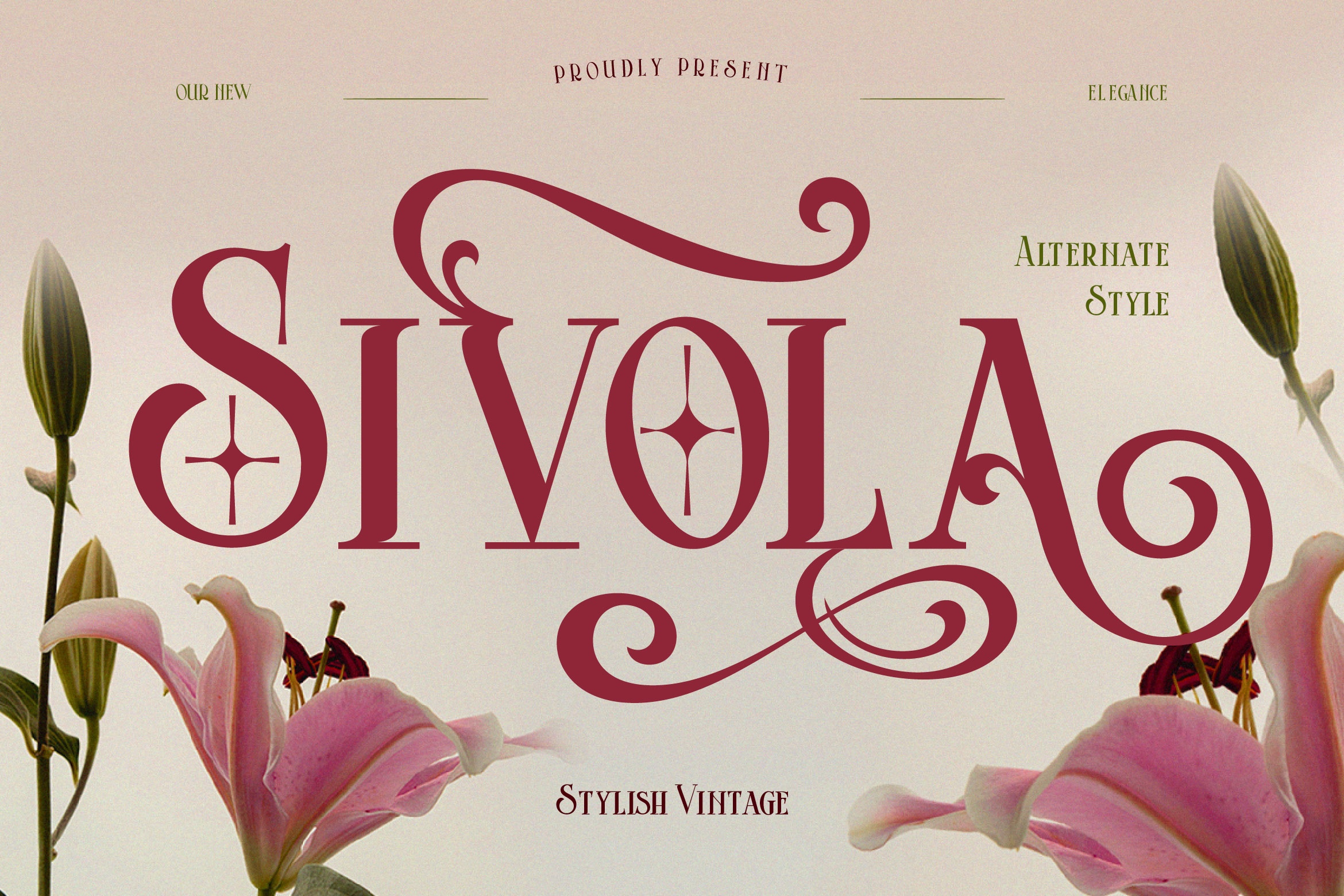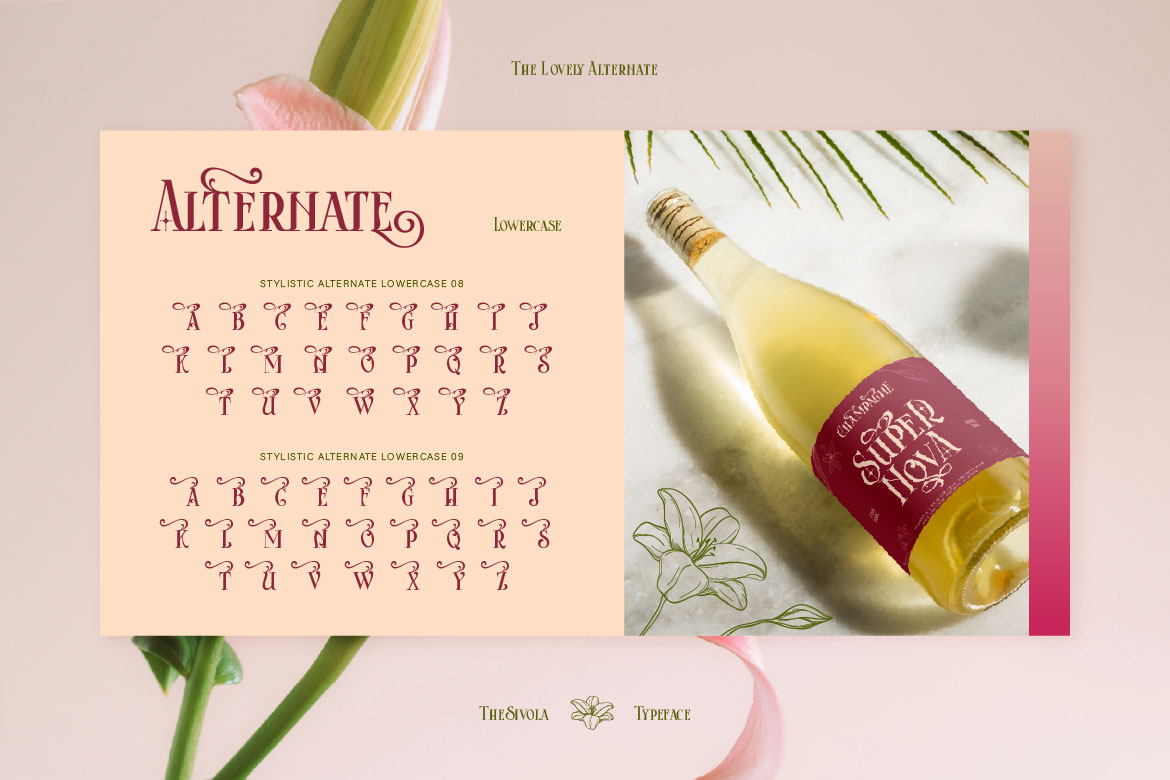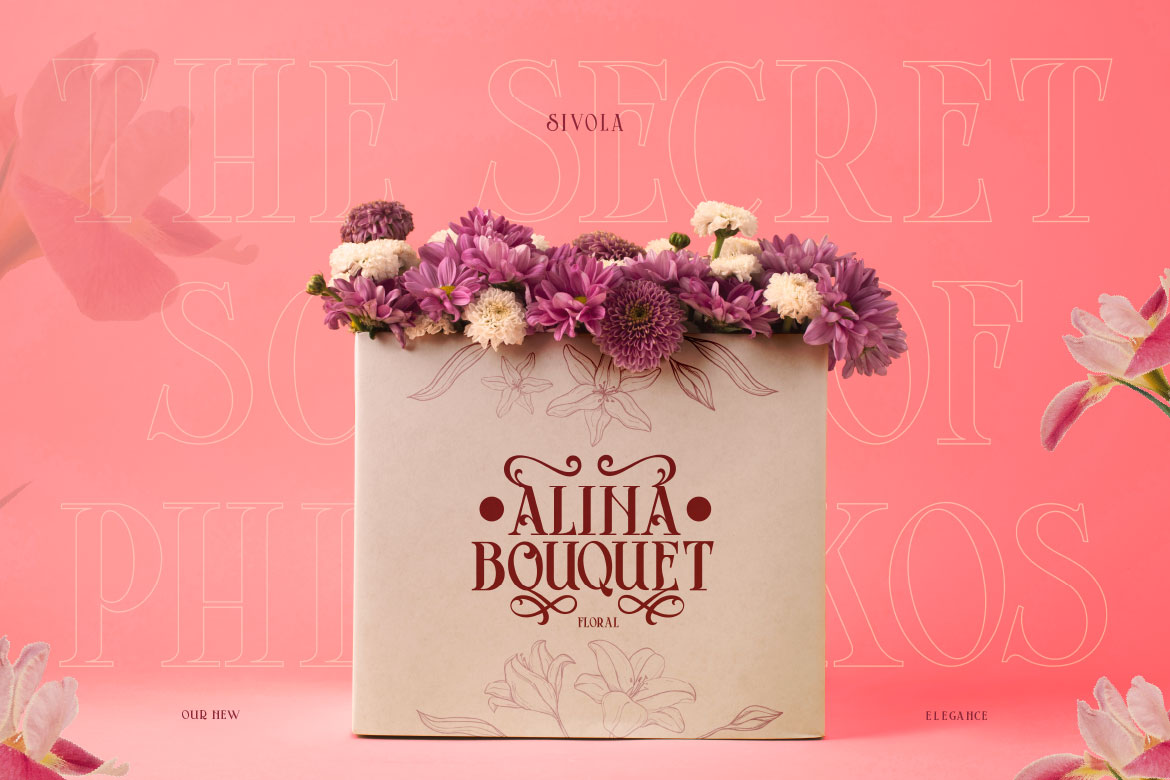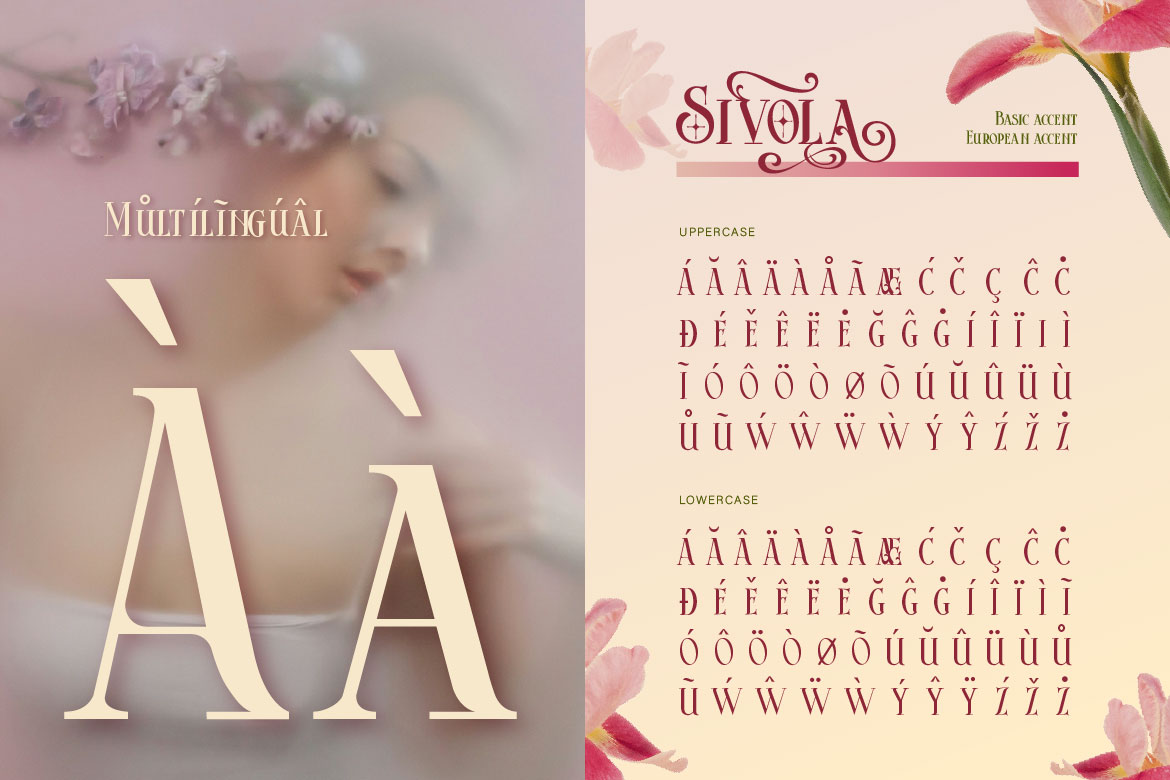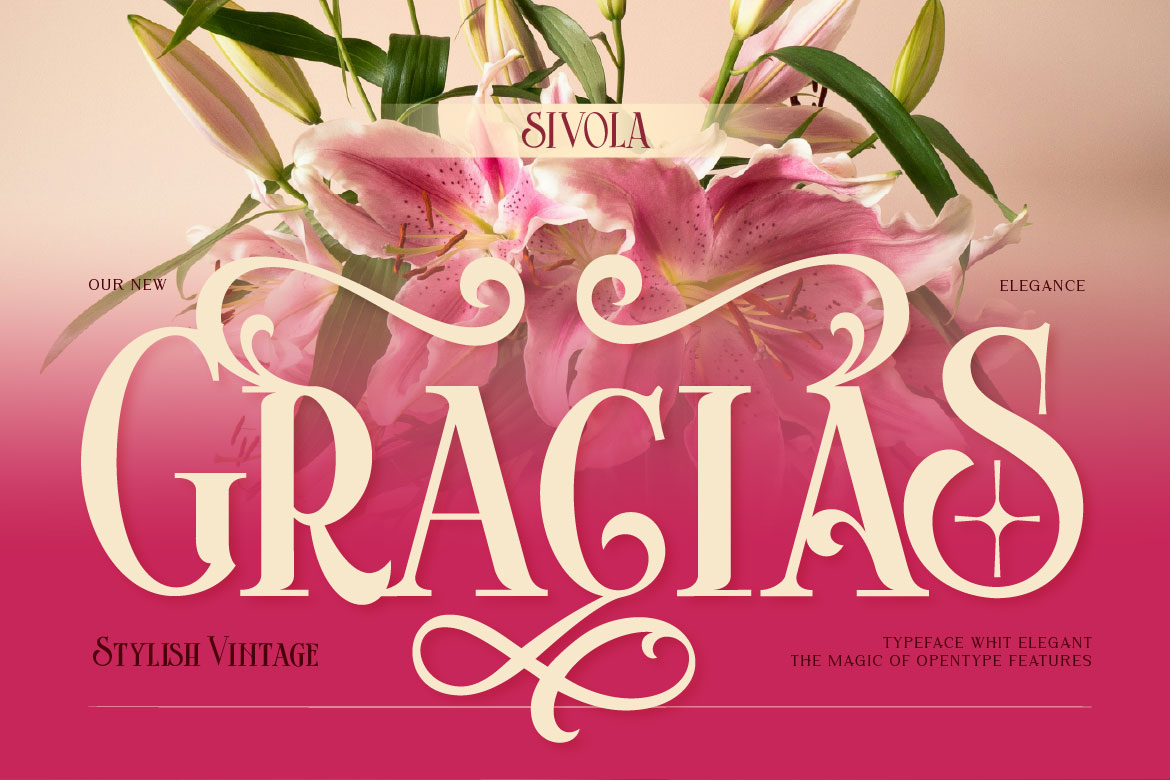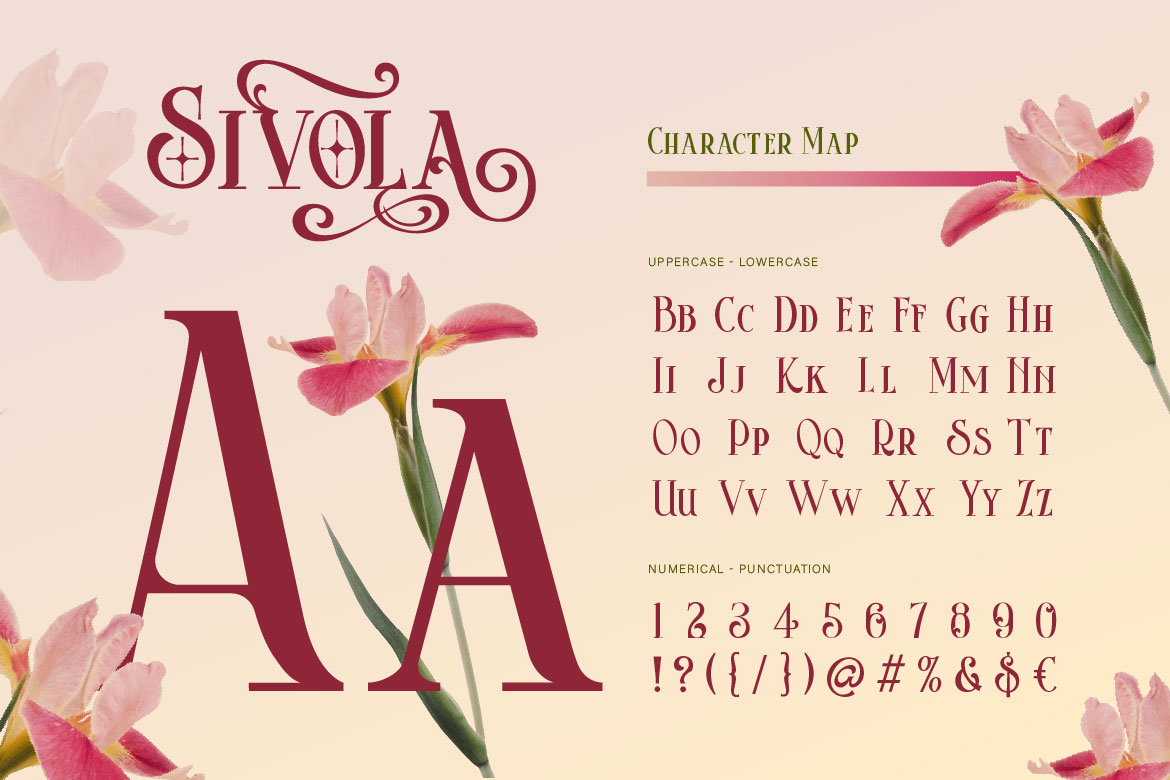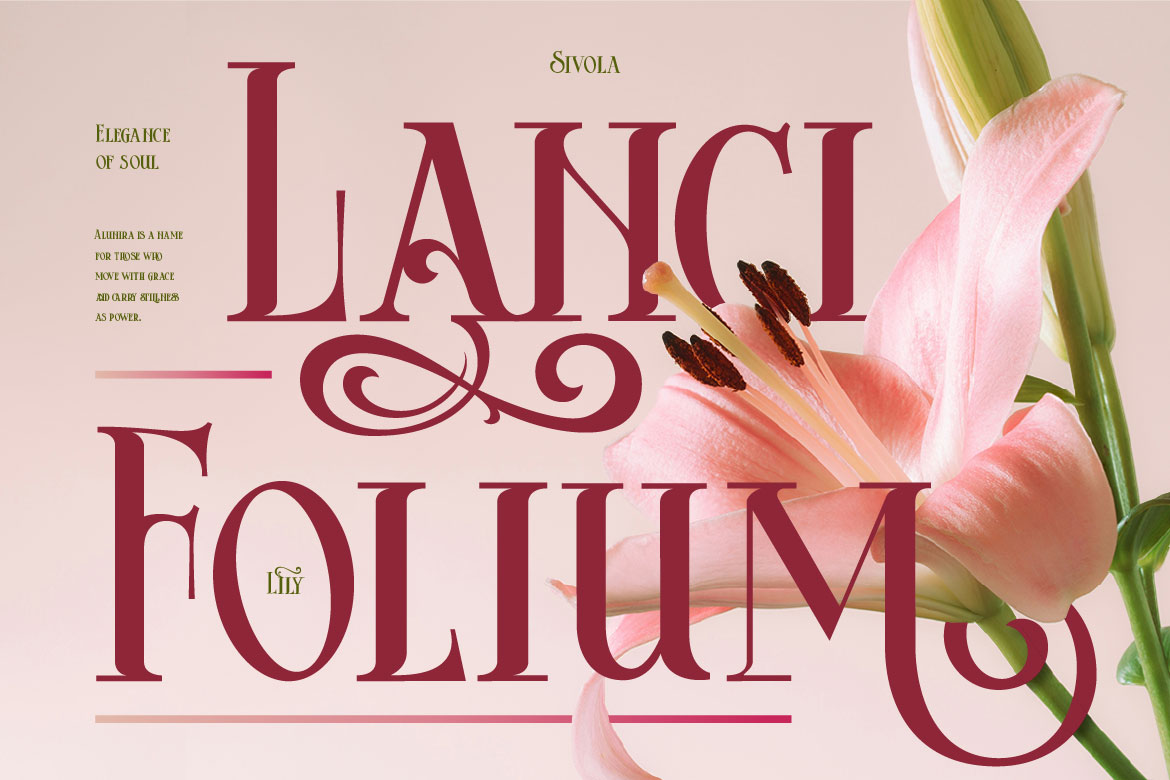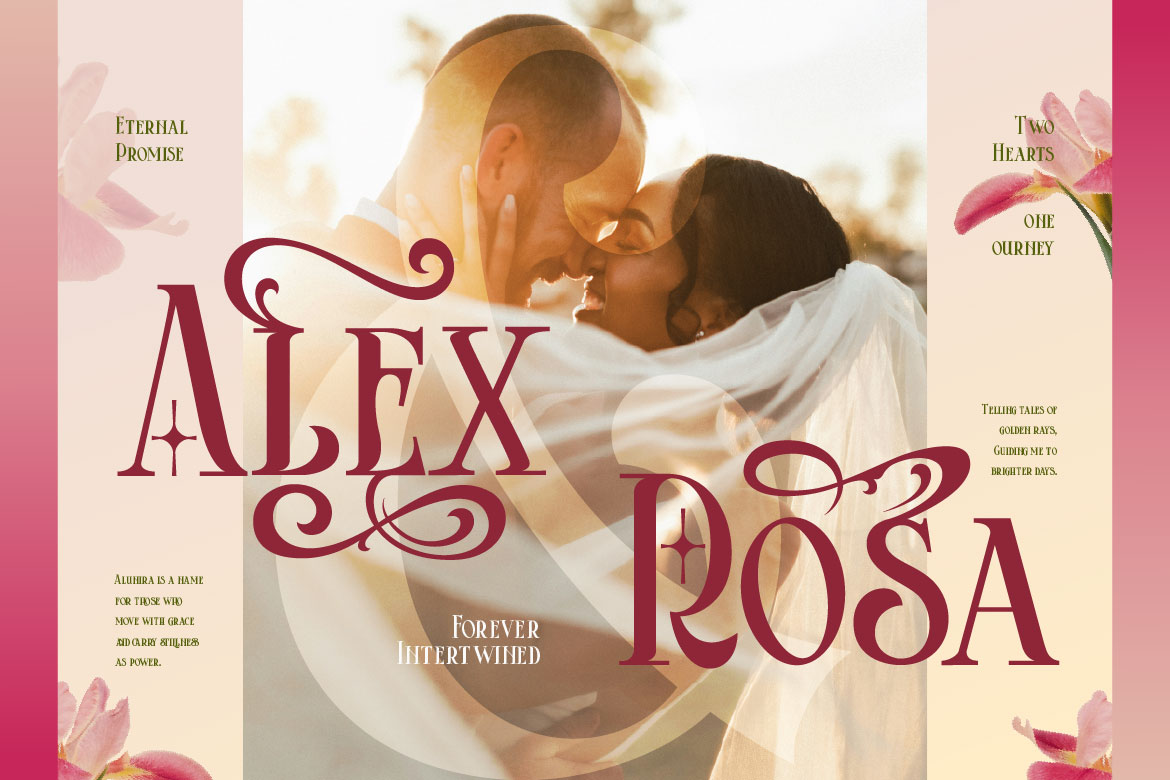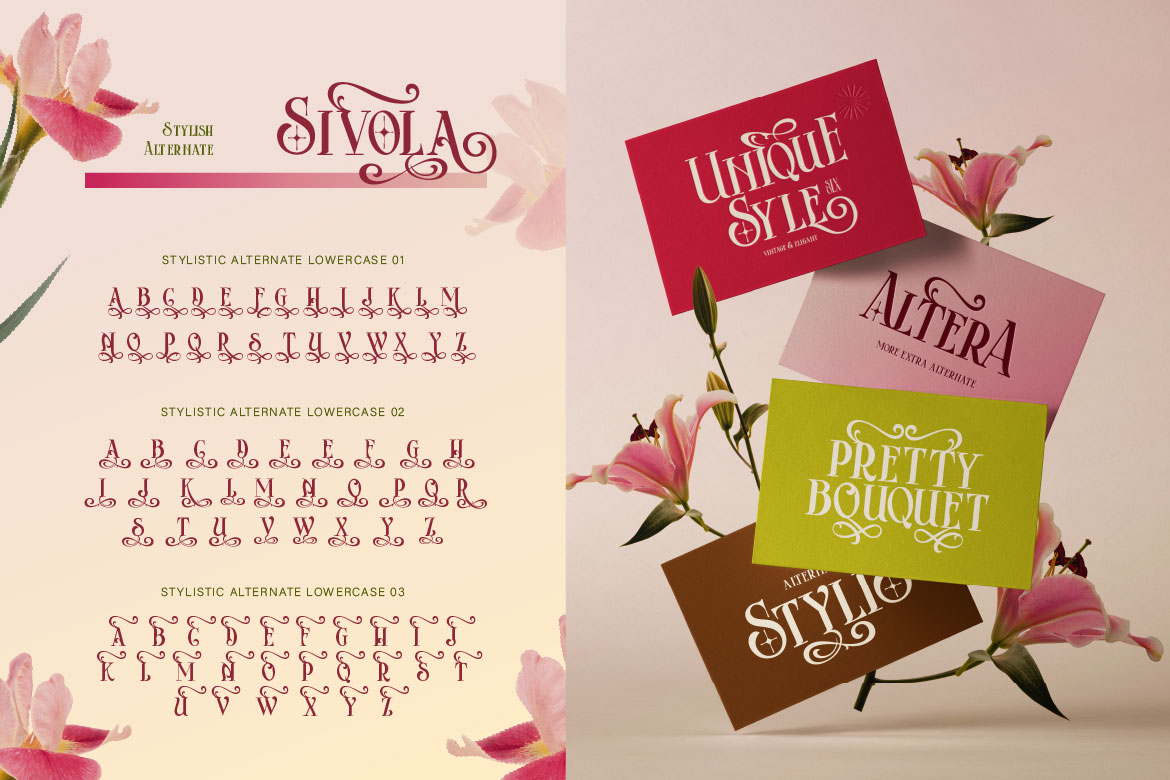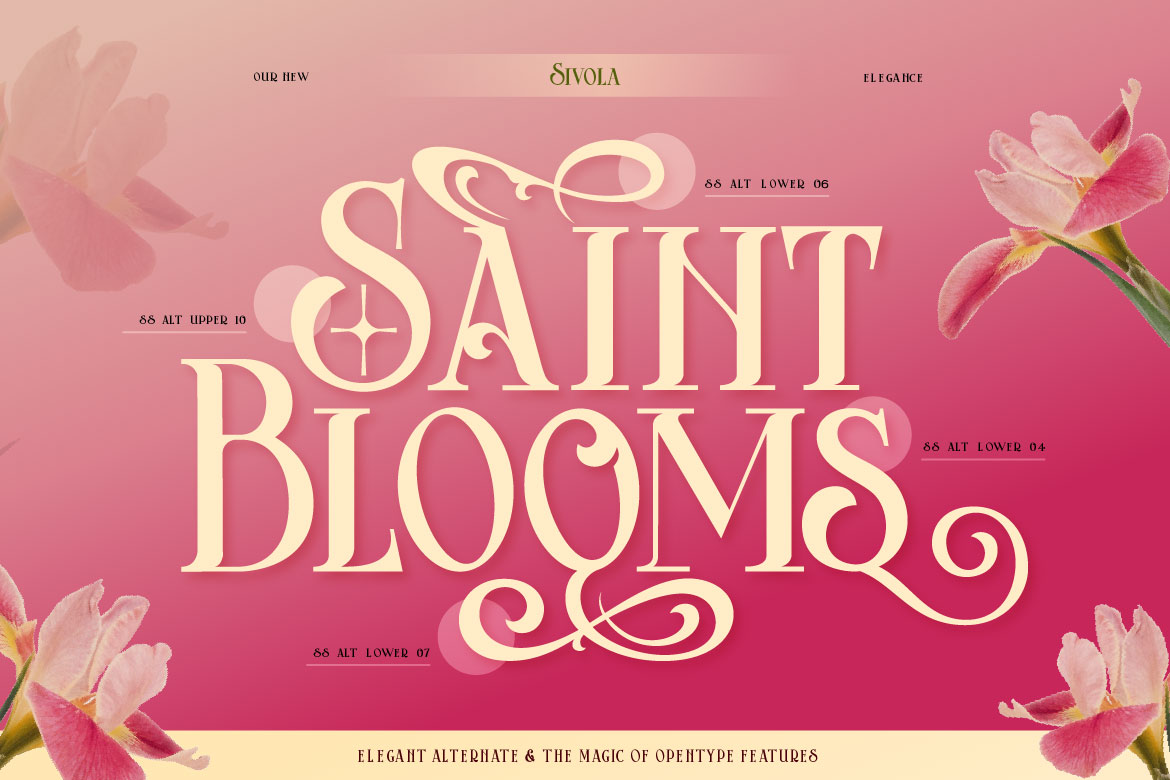
7. Sivola – Stylish Alternate Serif Font
Sivola – Stylish Alternate Serif Font
Sivola
Introducing Sivola, a stylish serif font with elegant curves and vintage charm. Designed with plenty of alternates and decorative ligatures, it offer unlimited creative possibilities. Whether you’re crafting a logo, poster, or editorial design, Sivola adds a luxurious and eye catching flair that make your design stand out. With its stylish swashes and classic letterforms, Sivola is one of a kind font for any creative project.
• Uppercase & Lowercase (All Caps)
• Number
• Punctuation
• Alternates
• Ligatures
• Multilingual
• Sivola Characters Map